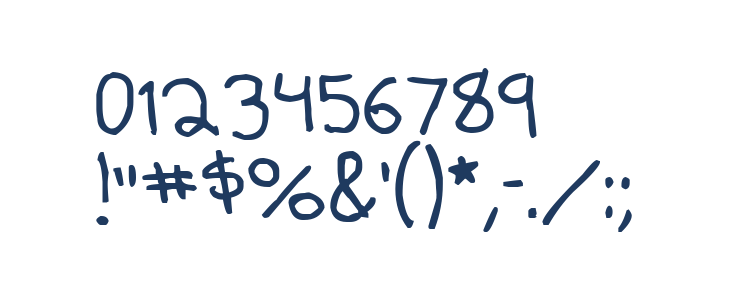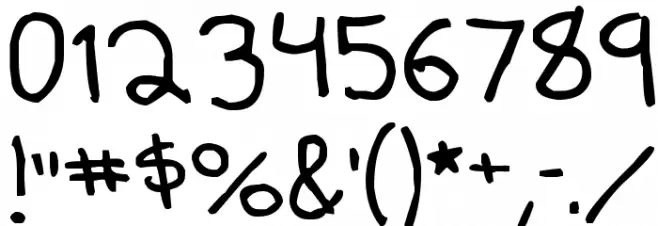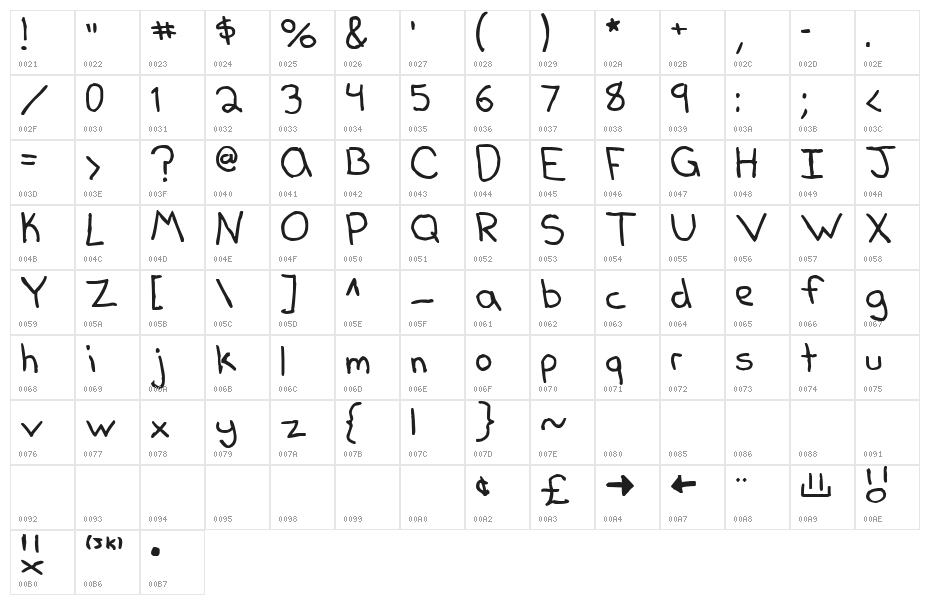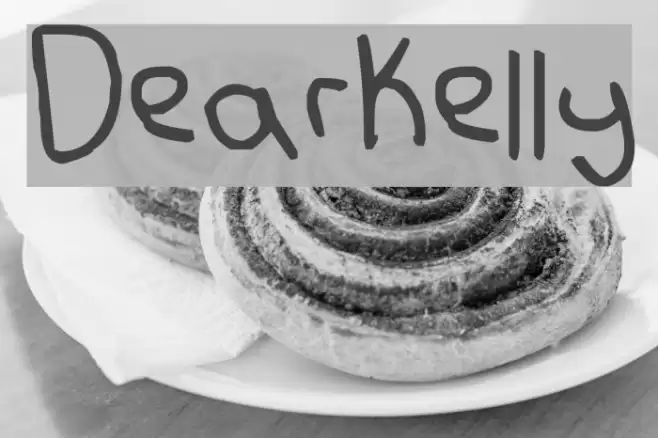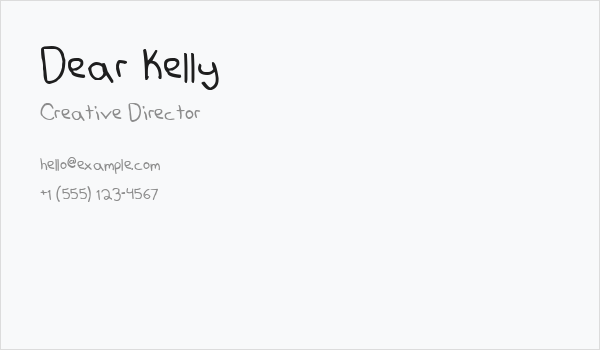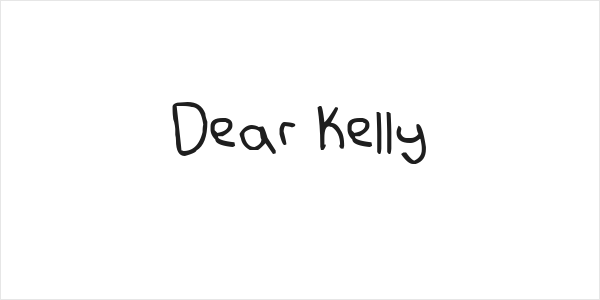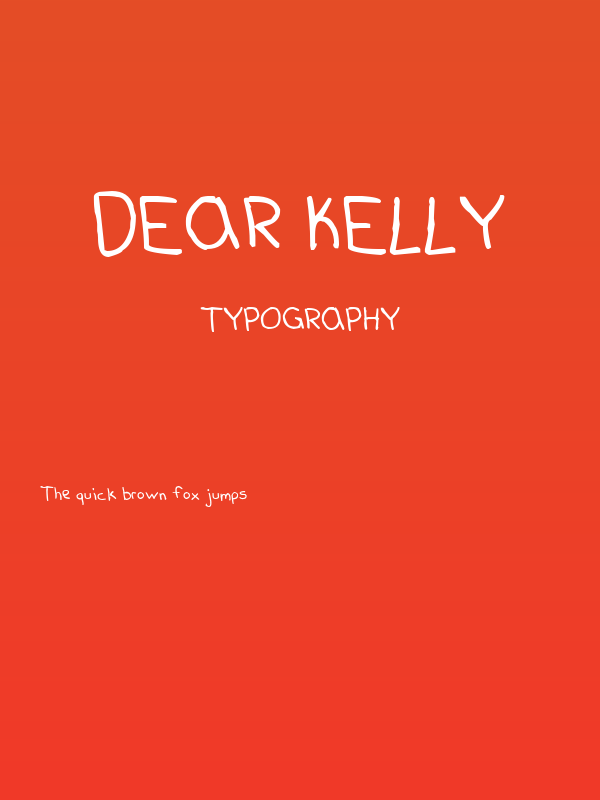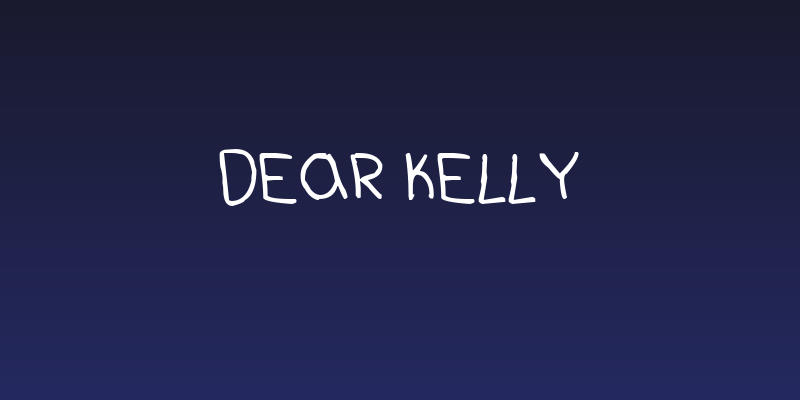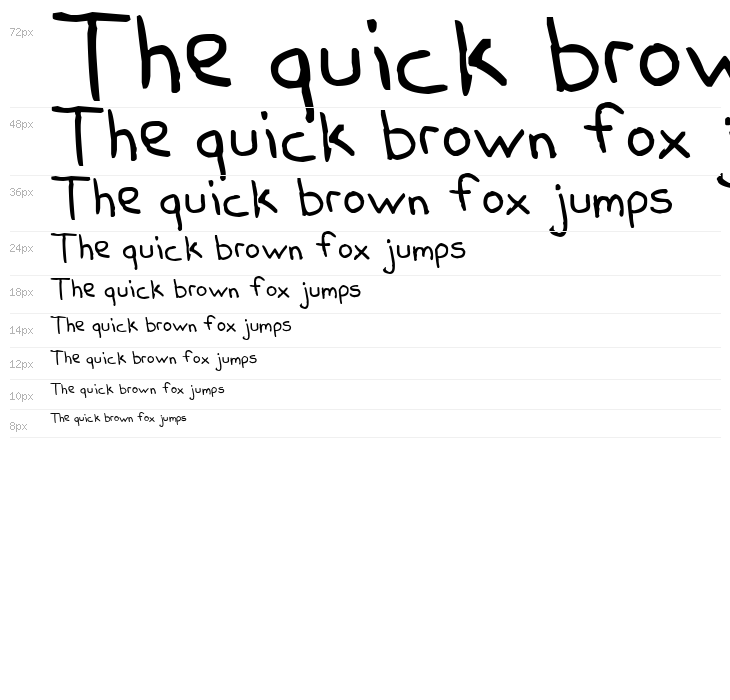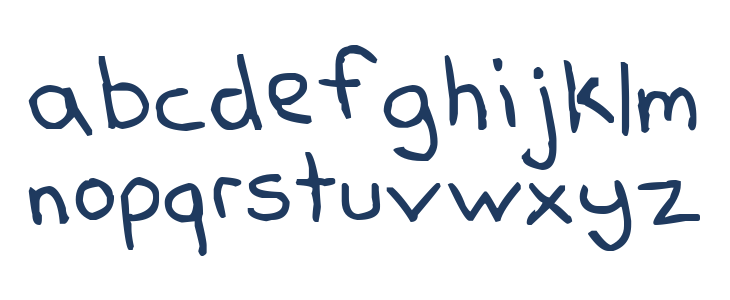
Dear Kelly Font
Dear Kelly Description
This font exhibits a playful and informal handwritten style, characterized by its uneven strokes and casual appearance. The letters are slightly irregular, giving them a personal and approachable feel. The uppercase and lowercase letters maintain a consistent style, with rounded edges and a slight tilt that adds to the font's whimsical nature. The numbers and special characters follow the same informal aesthetic, making the font suitable for projects that require a friendly and relaxed tone. Its unique charm lies in its ability to convey a sense of spontaneity and creativity, making it ideal for personal projects, invitations, and creative designs.
| Overall Style | Casual, Whimsical |
| Use Case | Headlines, Creative projects, Personal notes |
| Proposed Projects | Ideal for greeting cards, invitations, personal notes, and creative design projects. |